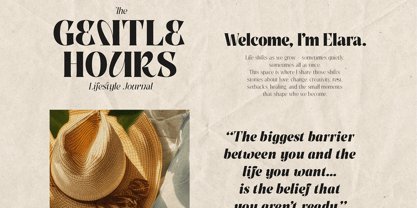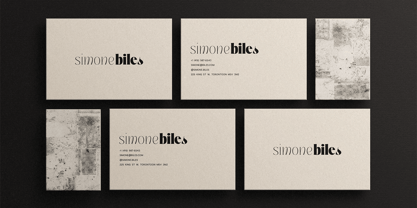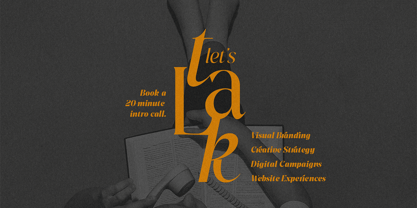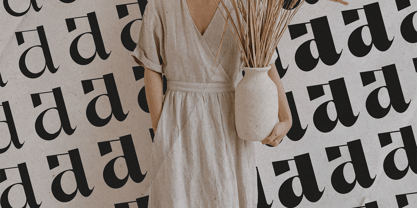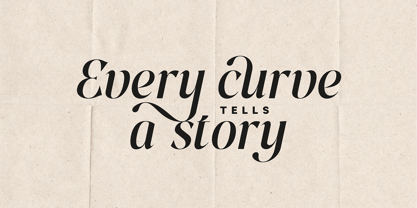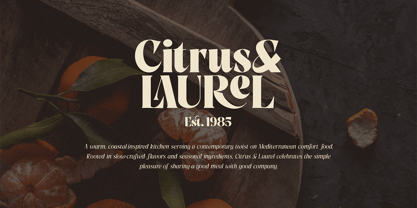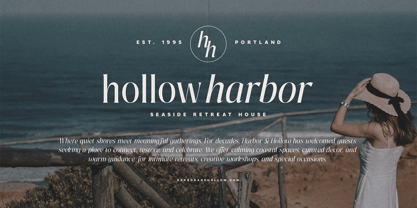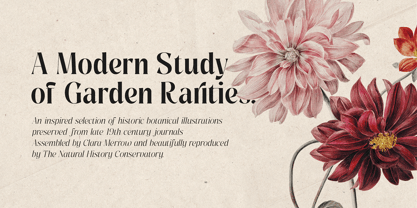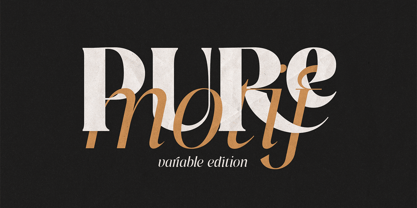
Pure Motif Variable
Pure Motif Variable is a fully flexible serif that lets you dial in the perfect mood with smooth, continuous weight transitions. From delicate thin strokes to bold, expressive forms, this variable edition offers complete creative control in a single powerful file. Featuring refined curves, graceful contrasts, and signature alternates, Pure Motif Variable is ideal for luxury branding, editorial design, and elevated typography that demands both beauty and versatility.